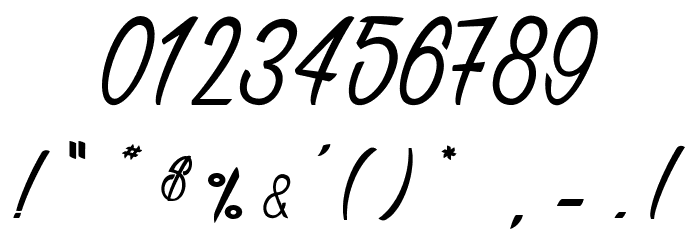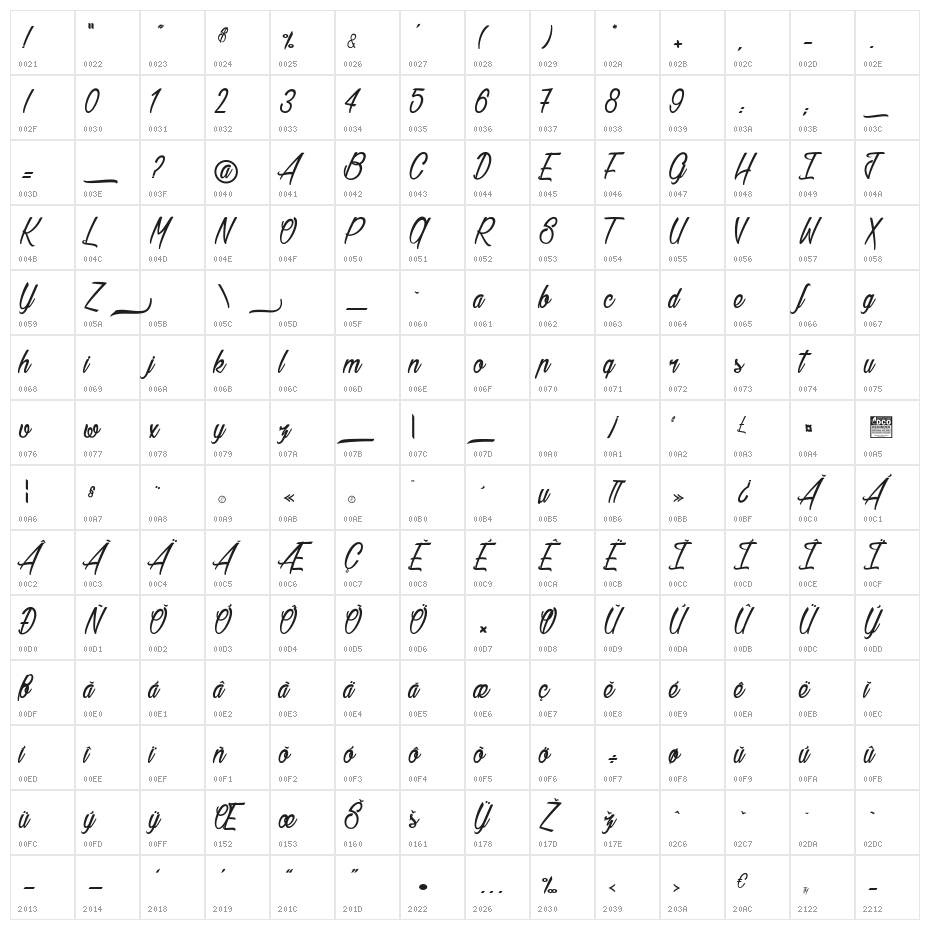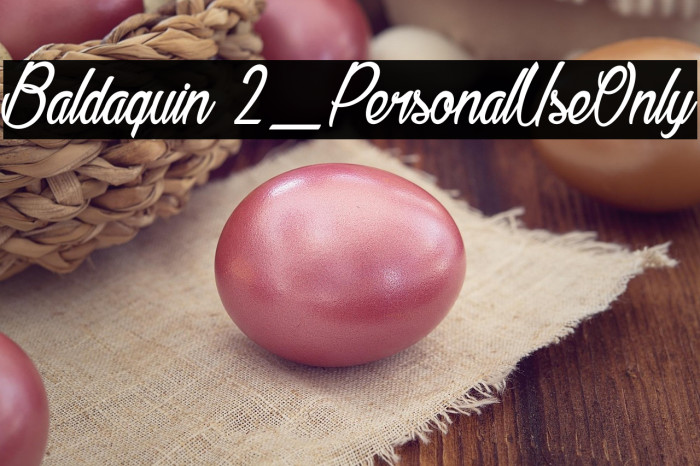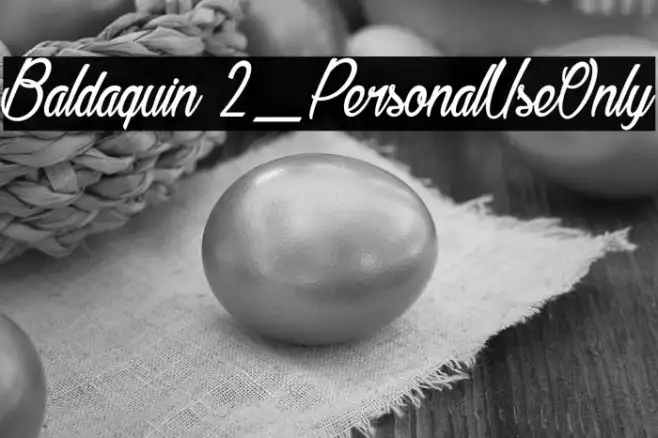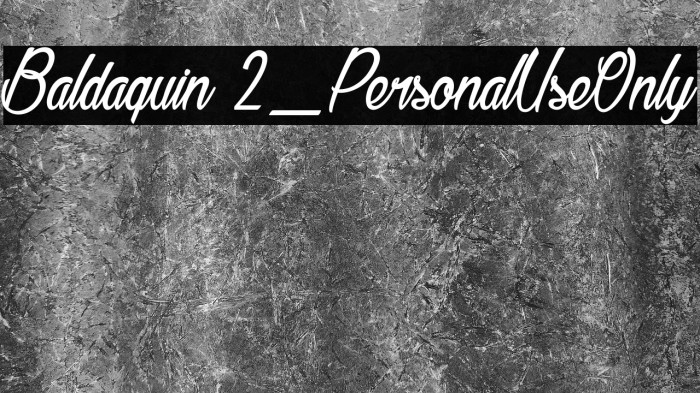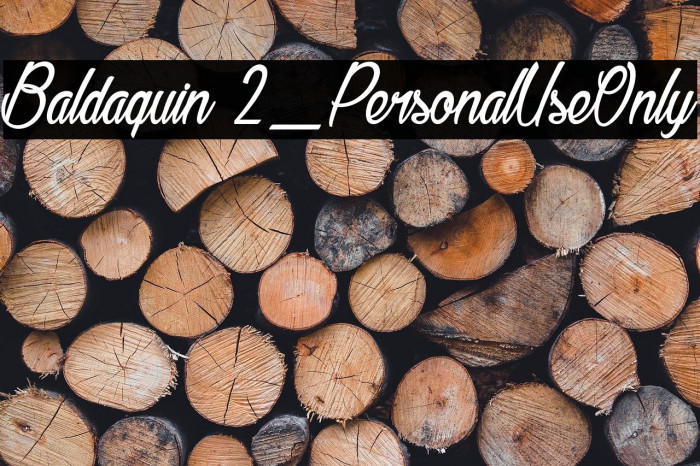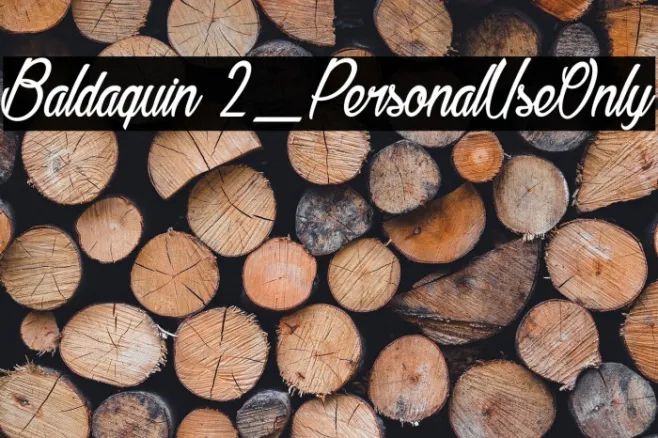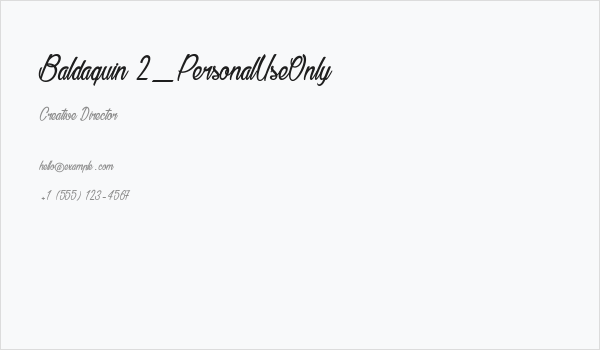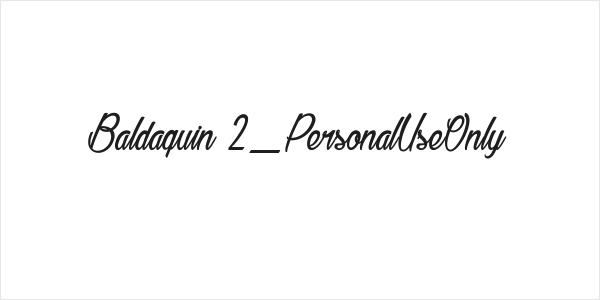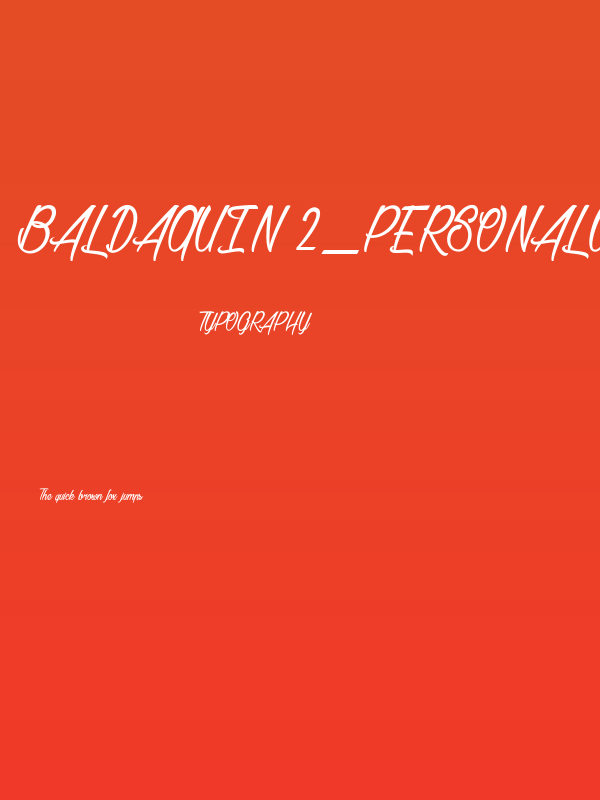
Baldaquin 2_PersonalUseOnly Font
Baldaquin 2_PersonalUseOnly Description
This font exhibits a dynamic and fluid script style, characterized by its elegant and flowing letterforms. The uppercase letters are tall and slightly slanted, giving a sense of movement and grace. The lowercase letters maintain a consistent slant, with smooth curves and connections that enhance readability. The numerals are designed to complement the overall script style, featuring similar curves and slants. Special characters are thoughtfully integrated, maintaining the font's cohesive aesthetic. The overall appearance is both sophisticated and approachable, making it suitable for a variety of design applications.
| Overall Style | Elegant, Fluid, Dynamic |
| Use Case | Logos, Invitations, Decorative Text |
| Proposed Projects | Ideal for wedding invitations, greeting cards, branding, and elegant packaging designs. |